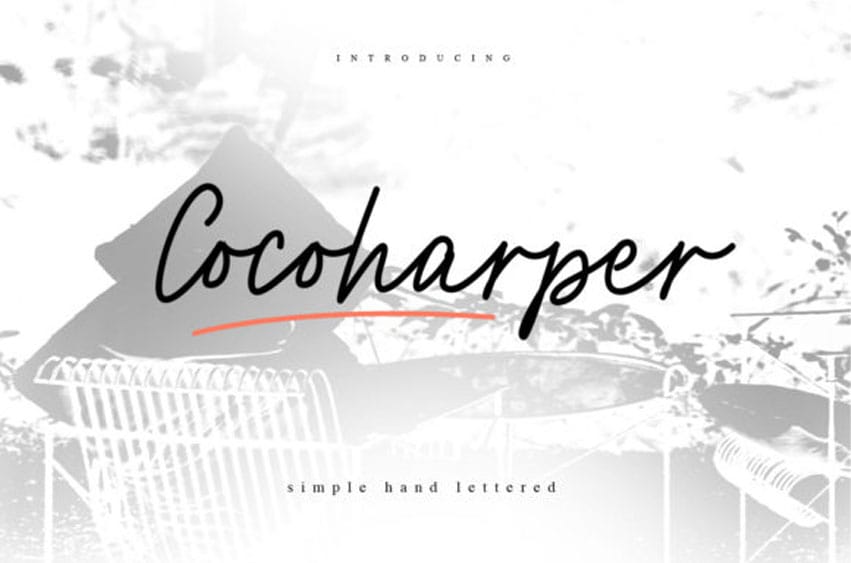
Cocoharper Font is a sweet and simple script that will add an authentic vibe to any design idea!
It fits in headlines, logos, posters, flyers, invitations, name cards, branding materials, print media, editorial layouts, and many more.